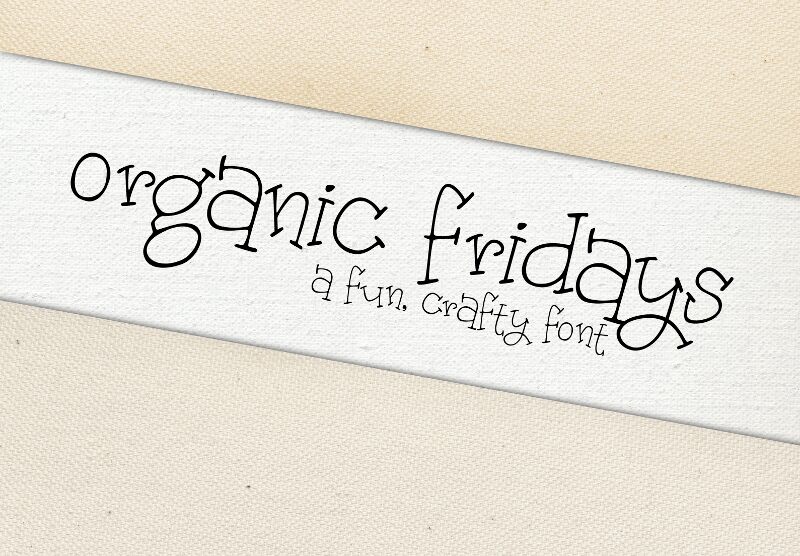
Organic Fridays by Brittney Murphy is a free comic display font with tall, loosely drawn letters and a deliberately uneven silhouette. Slender strokes change width as they travel, ending in small hooks and wedge-like flicks. The mix of narrow forms and broad, looping curves gives each word a lively, improvised pace.
Independent cafes and cheerful food brands could use it for logos, menus, packaging, and event posters. It especially suits family audiences and young creative crowds. Those crooked tips and oversized curves can echo doodled illustrations, making the lettering part of playful packaging art.